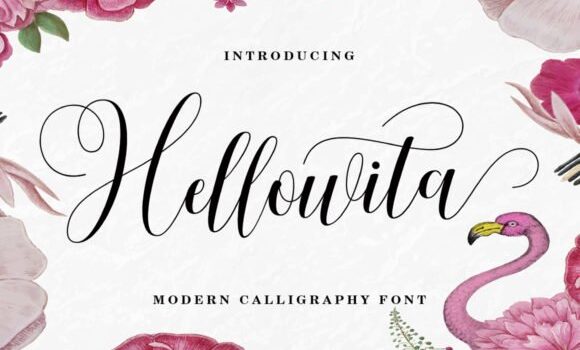
hellowita
Hellowita Font – Free Download Introduction to Hellowita Font Hellowita is a gorgeous and light script font with fabulous swashes. 📸 Preview Gallery 6 images 📌 Product Name Hellowita Font 👤 Author madjack.font 📂 Category Explore ⬇️ Download Hellowita Font